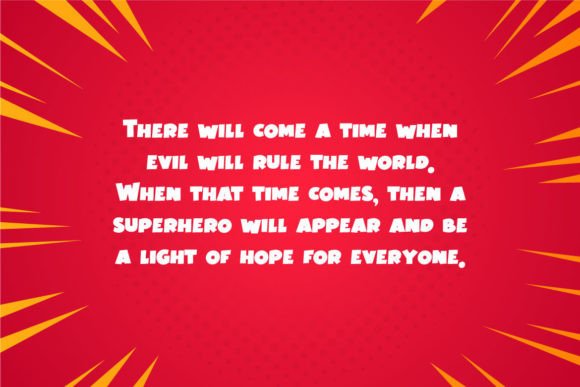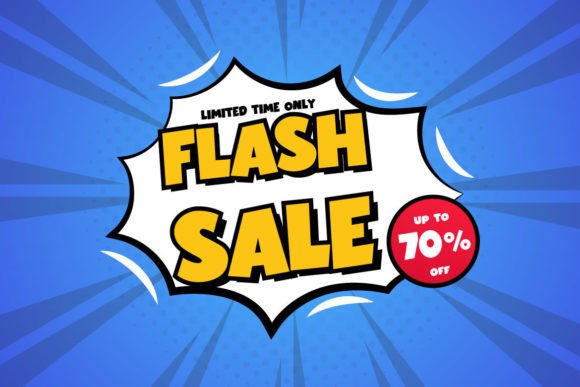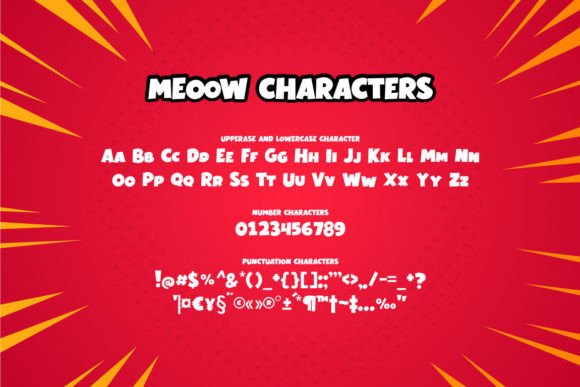
Introduction to Meeow Font
Meeow is a fun and playful display font.
Whether you use it for cartoon-related designs, comic books, childrenโs games, or just any creation that requires a joyful touch, this font will be an amazing choice .
Key Features of Meeow Font
Why Choose Meeow Font?